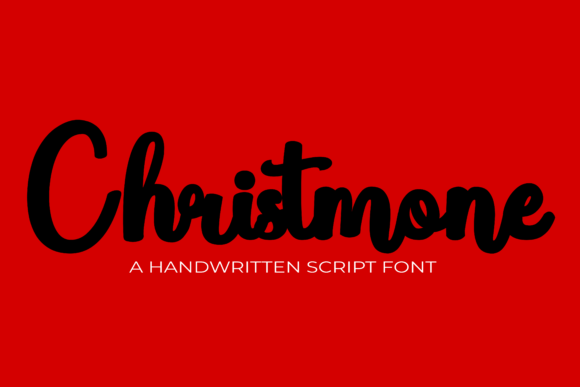
Embark on a Typographic Journey to Enchant and Inspire: Discover Christmone, a Script Font Rooted in Whimsy
In the realm of digital artistry, where words dance and emotions flow, there exists a font that captivates hearts with its charm and whimsy: Christmone. This script font, birthed by the creative minds at Infontree, stands as a testament to the power of handwritten elegance. Designed to ignite the imagination and evoke a sense of playful nostalgia, Christmone is the perfect companion for those seeking to add a touch of whimsy and character to their creative endeavors.
Christmone's graceful strokes mimic the delicate flow of a calligrapher's pen, evoking a sense of timeless beauty and personal connection. Each letter dances across the screen, carrying with it a story waiting to be told. Its curves and flourishes invite the reader to linger, to savor the artistry and用心投入, to lose themselves in the magic of the moment.
Whether you're crafting wedding invitations that whisper of romance, designing cards that convey heartfelt sentiments, or creating any project that calls for a touch of whimsy, Christmone rises to the occasion with effortless grace. Its versatility shines through, adapting seamlessly to a myriad of creative styles and genres.
Step into a world where imagination reigns supreme, where words become art, and where your creative vision takes flight. Embrace the charm and playfulness of Christmone, and let your designs blossom with newfound beauty.